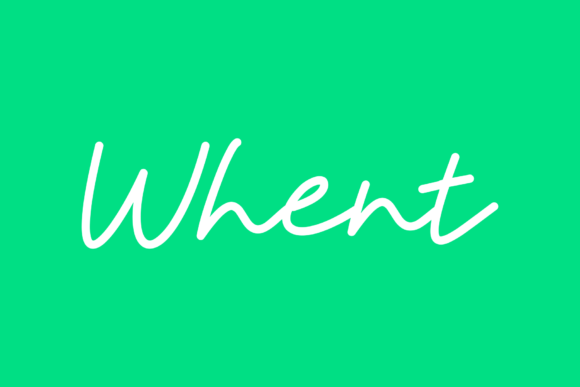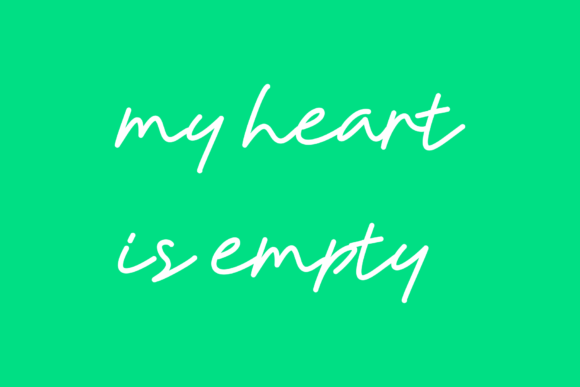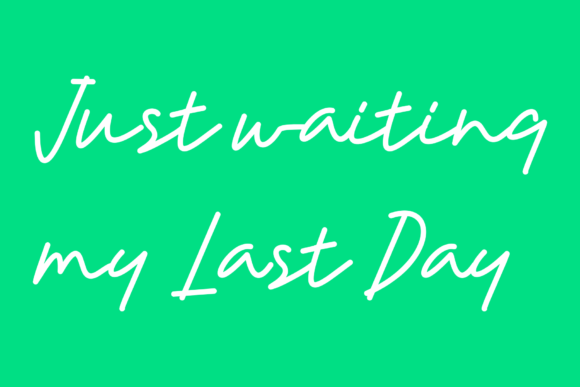
Whent Font
About Whent Font
Whent, a gorgeous and bold handwritten font, is meticulously crafted to infuse your headlines and logotype projects with a stylish touch. Designed to convey strength, confidence, and dynamism, this font brings a powerful and impactful presence to your designs while adding a nostalgic character that resonates with charm and personality.
The boldness of Whent makes it an ideal choice for grabbing attention in headlines. Its strong and confident appearance ensures that your messages are conveyed with authority and impact. Whether you’re designing for print or digital media, Whent’s bold strokes make it stand out, ensuring that your headlines command the attention they deserve.
In logotype projects, Whent becomes a statement piece, adding a touch of style and personality. The font’s handwritten quality gives your logos a unique and authentic feel, setting your brand apart with its distinctive character. Whent’s bold design ensures that your logo is not just seen but leaves a lasting impression.
The font’s nostalgic character adds an extra layer of charm to your designs, making it suitable for projects that aim to evoke a sense of the past while maintaining a contemporary and stylish look. Whether you’re working on branding, packaging, or other creative ventures, Whent can seamlessly blend vintage vibes with a modern aesthetic.
Beyond its visual appeal, Whent is a versatile choice that adapts to various design contexts. Its boldness doesn’t compromise legibility, making it suitable for a range of applications, from marketing materials to product packaging. Whent allows you to experiment with a strong and dynamic visual language, creating designs that are both memorable and impactful.
In conclusion, Whent is more than just a font; it’s a design tool crafted to enhance your headlines and logotype projects with a gorgeous and bold handwritten style. Its strength, confidence, and nostalgic character make it a standout choice for designers seeking to make a statement while adding a touch of timeless charm to their creations.